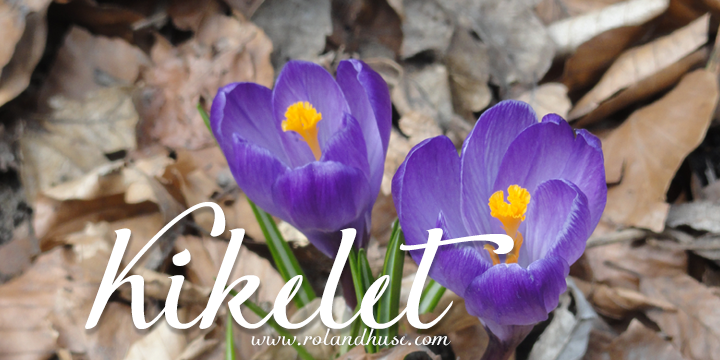
Preview and download Kikelet Font. Created by Runes & Fonts in Script Various styles with Free for personal use license.
KIKELET is a script font inspired by spring (kikelet means spring in Hungarian) I was experimenting with unusual style of forming the letters "y" "p" "s" "z" etc. Well, you'll see! There are two ligaturtes to replace double"tt" and "tl" for readability. Free for personal use only. For commercial use please donate or contact me via myhandwritings@gmail.com If you have character / language extension requests, any questions or feedback for further improvement on this one feel free to contact me! You MAY NOT sell this font or claim them as your own. You MAY NOT edit or rename this font. You MAY NOT redistribute this font. Thank you & I hope you like this font, Roland http://www.rolandhuse.com https://www.facebook.com/pages/Runes-And-Fonts/123221817784772 |